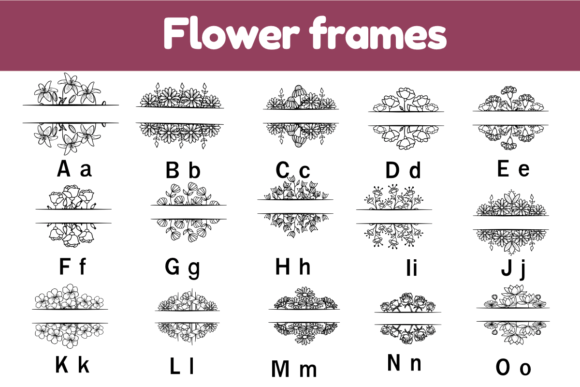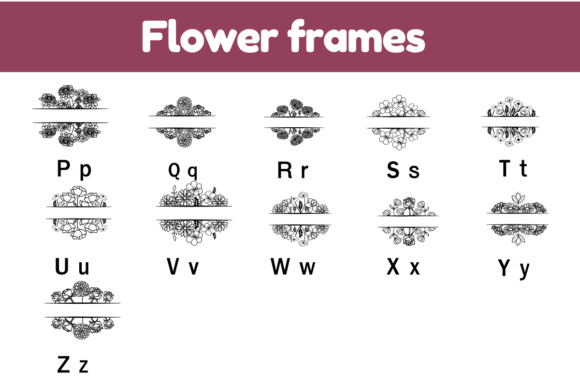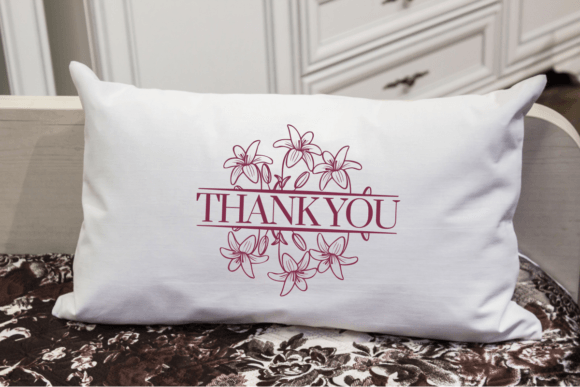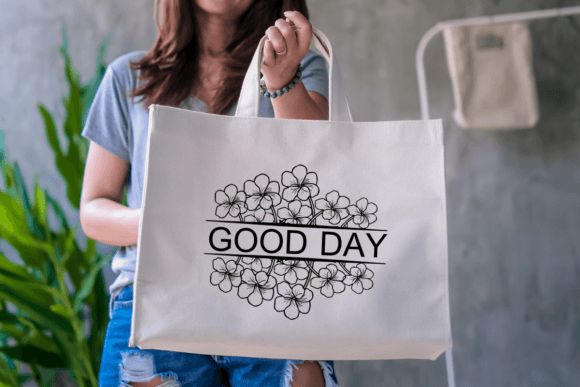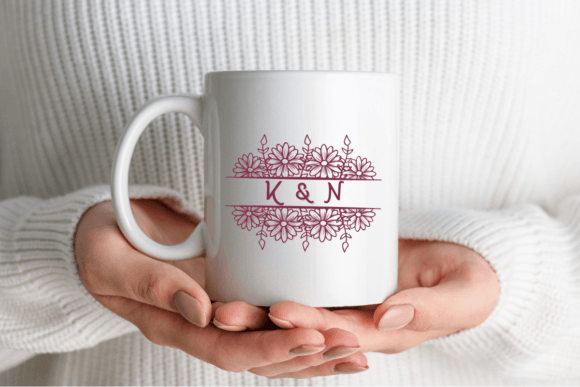
The Blooming Beauty of Flower Frames Font
I’ll never forget the time I was working on a project for a client who wanted a custom floral border. I had spent hours searching for the perfect font, but nothing seemed quite right. That was until I stumbled upon Flower Frames Font. It was like a breath of fresh air – a beautiful, fun dingbat font featuring frames decorated with stunning flower designs. In this article, I’ll share my experience with Flower Frames Font, its features, and how to make the most of it in your designs.
A Personal Review of Flower Frames Font
So, what do I love about Flower Frames Font? 🤔 Here are a few things that make it stand out:
- ✨ Unique and versatile: Each frame is made entirely of flowers, adding a lovely, natural touch to your projects.
- ✅ Ease of use: The font is easy to navigate, with a wide range of frames to choose from.
- 🌼 Floral theme: Perfect for creating unique borders, labels, or decorative elements with a floral theme.
While Flower Frames Font is a beautiful addition to any design project, there are a few small quirks to be aware of:
- ⚠️ Limited character set: As a dingbat font, Flower Frames Font has a limited character set, which may require some creative problem-solving.
- 🤔 Glyphs can be finicky: Some glyphs may not work seamlessly with all design software or platforms.
One of the best things about Flower Frames Font is its OpenType features and glyphs. With a wide range of frames to choose from, you can add a unique touch to your designs. To access the glyphs, simply open the Glyphs panel in your design software and browse through the available frames.
The Story Behind Flower Frames Font
Flower Frames Font was designed by a team of creatives who wanted to bring a touch of nature to design projects. Inspired by the beauty of flowers and the art of botanical illustration, they created a font that’s both fun and elegant. With its unique frames and decorations, Flower Frames Font is perfect for designers, crafters, and creative hobbyists looking to add a floral touch to their work.
| What is Flower Frames Font? | Flower Frames Font is a fun dingbat font featuring frames decorated with beautiful flower designs. |